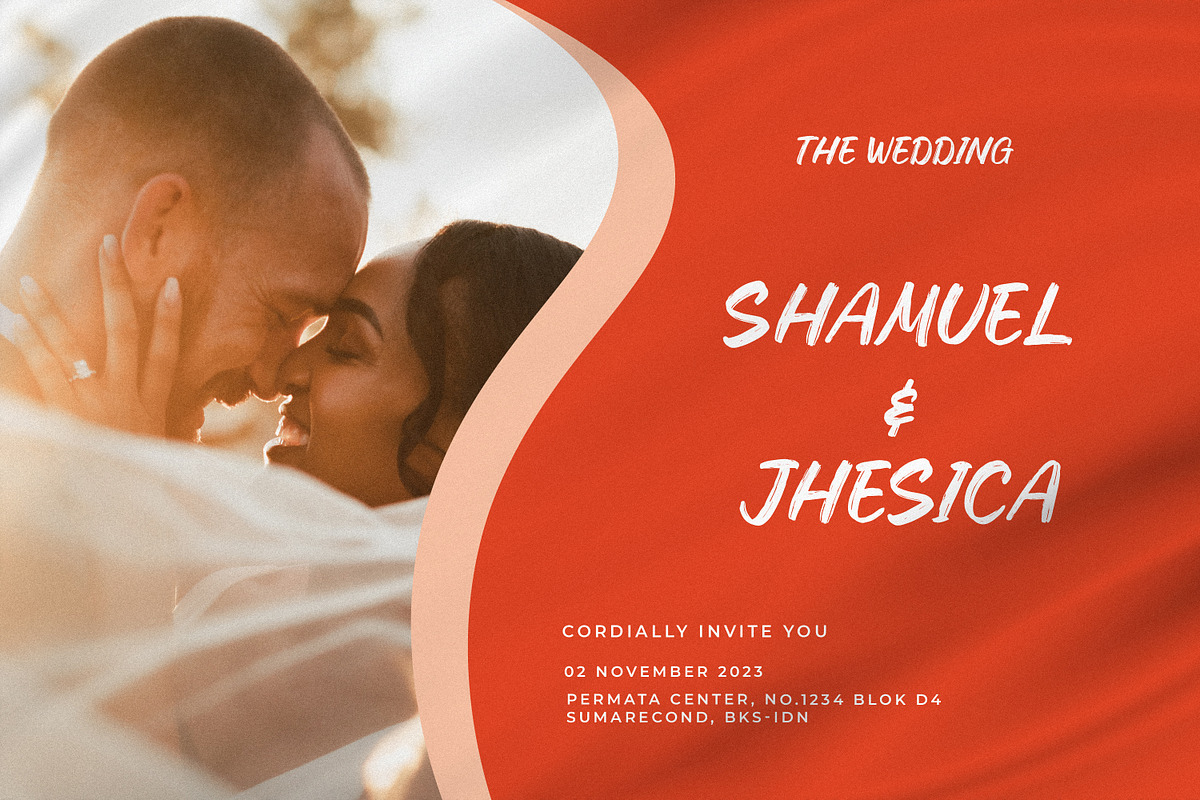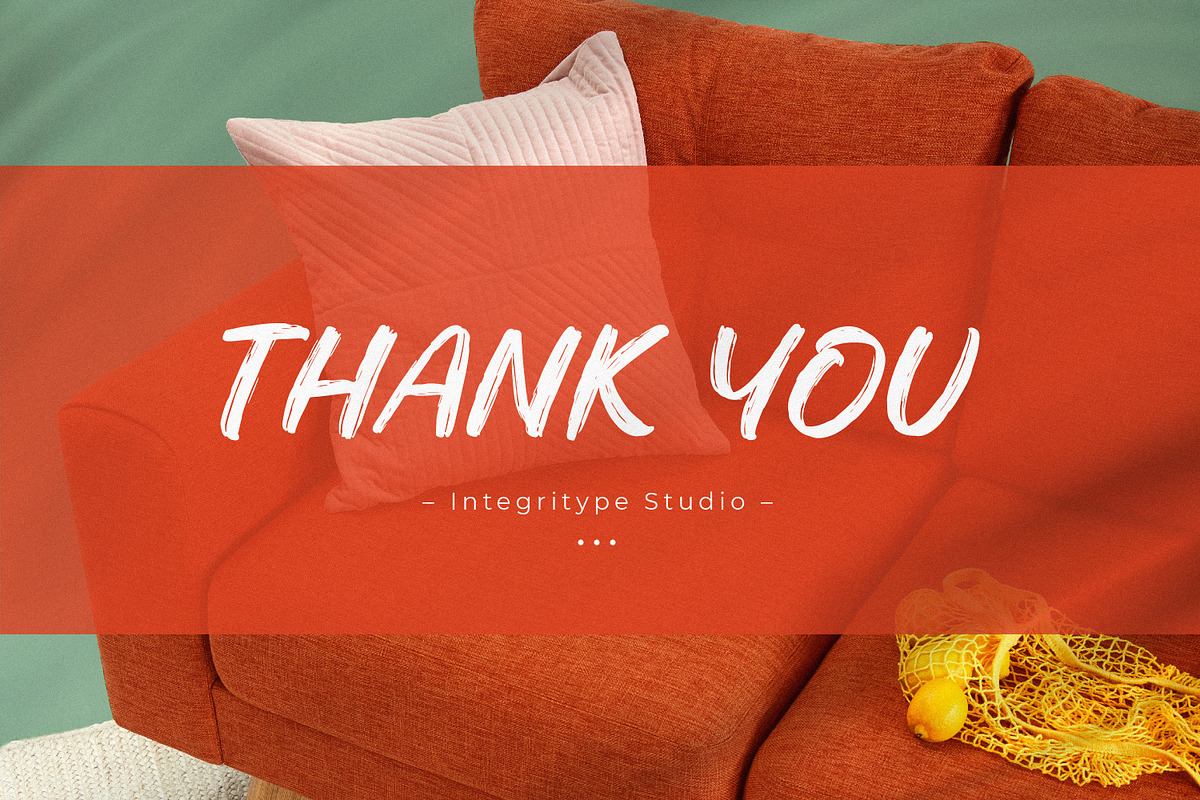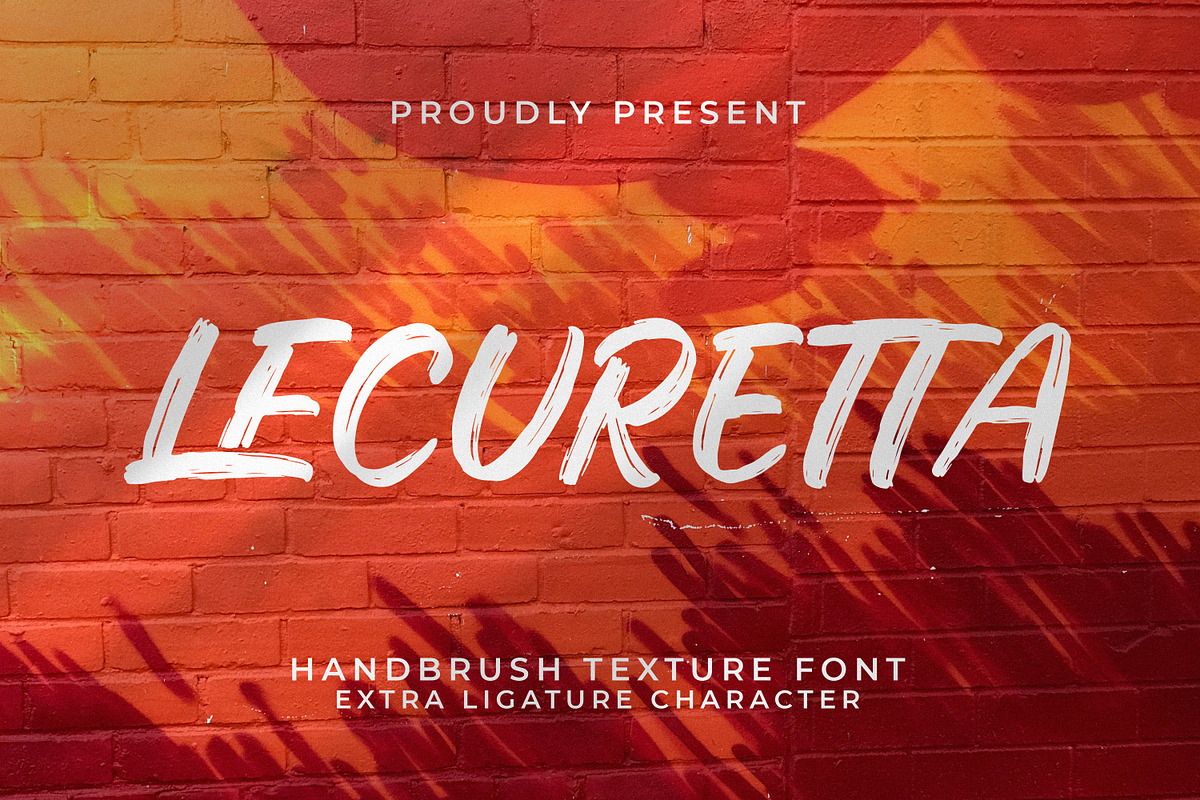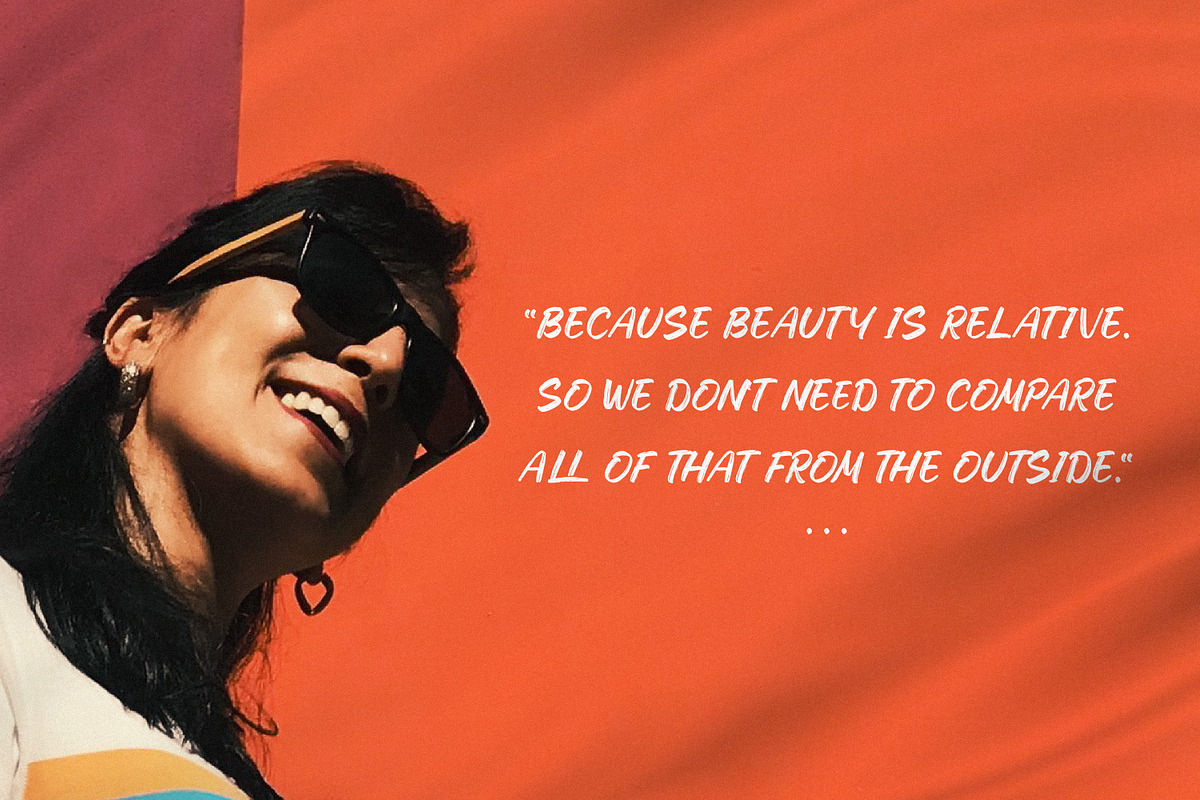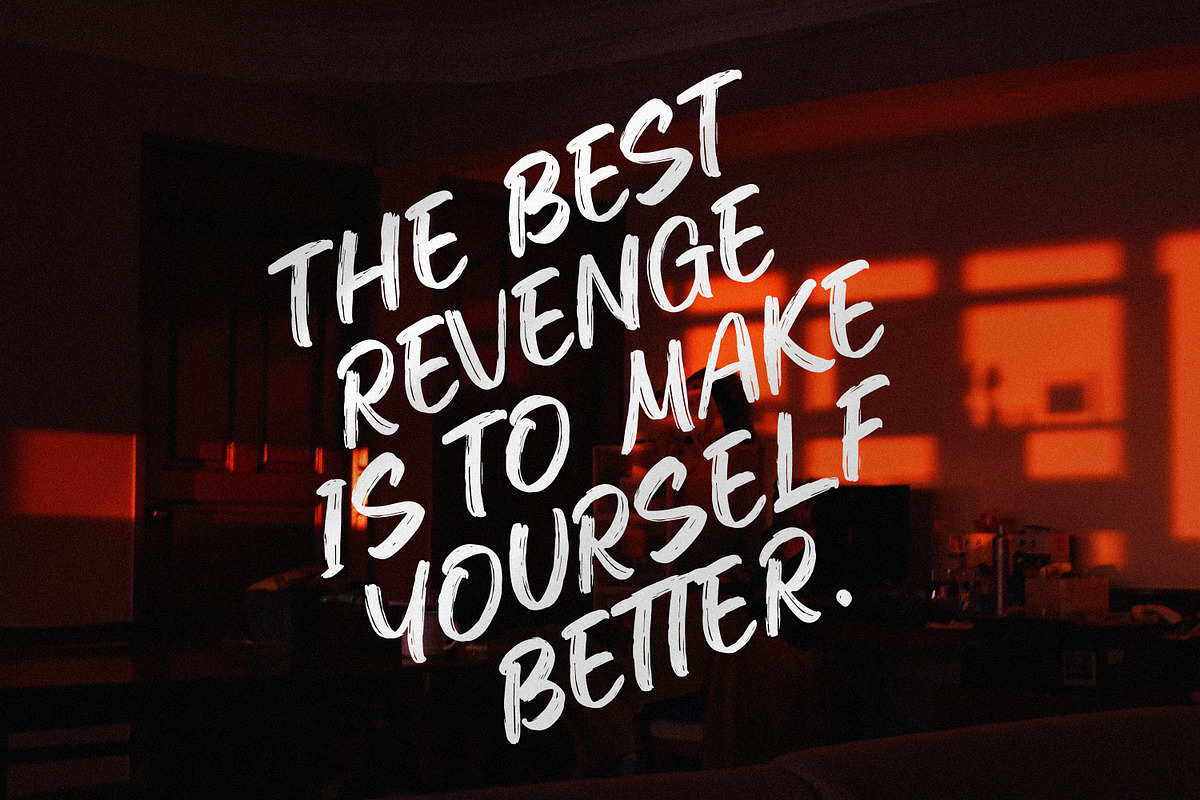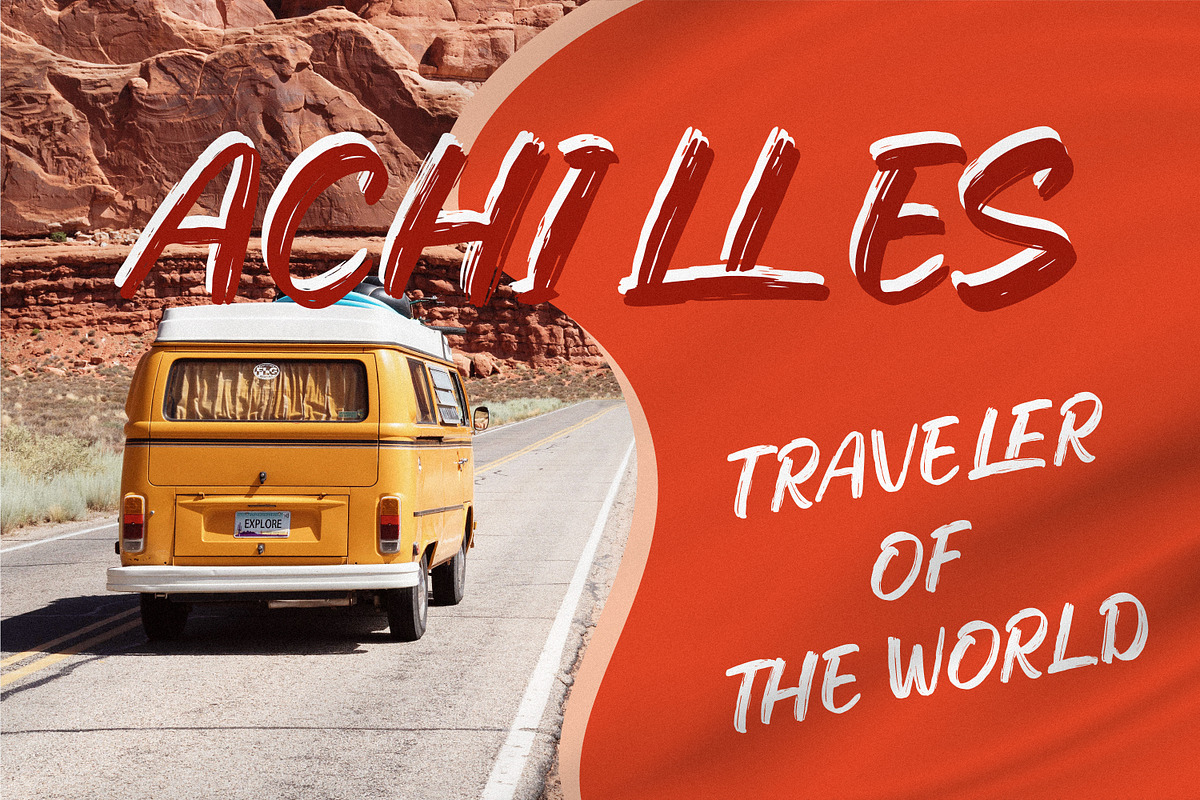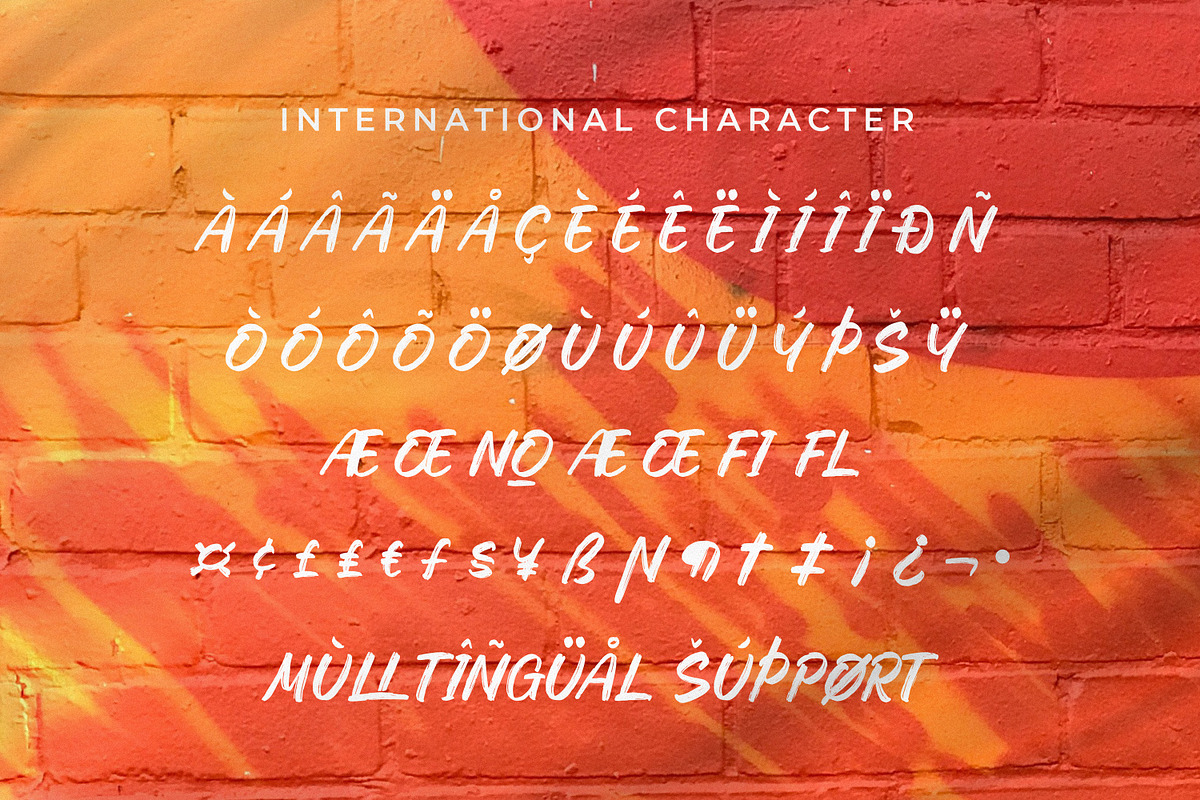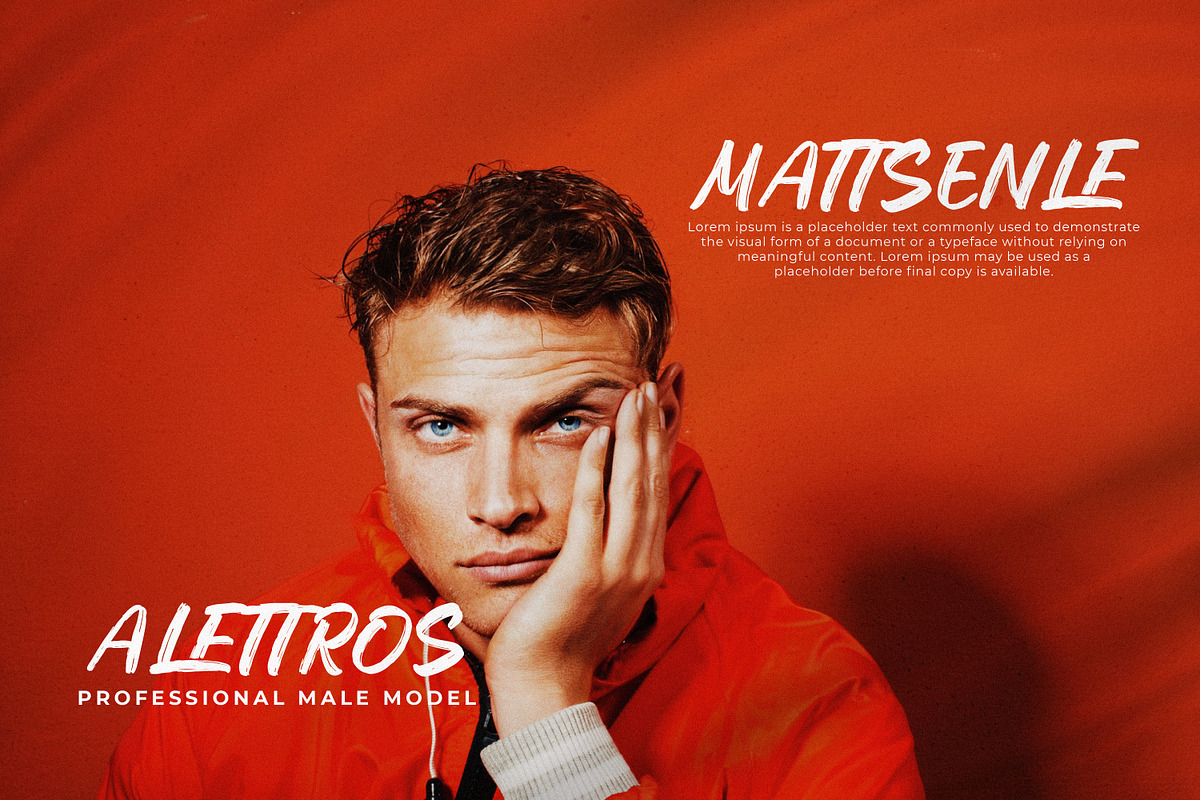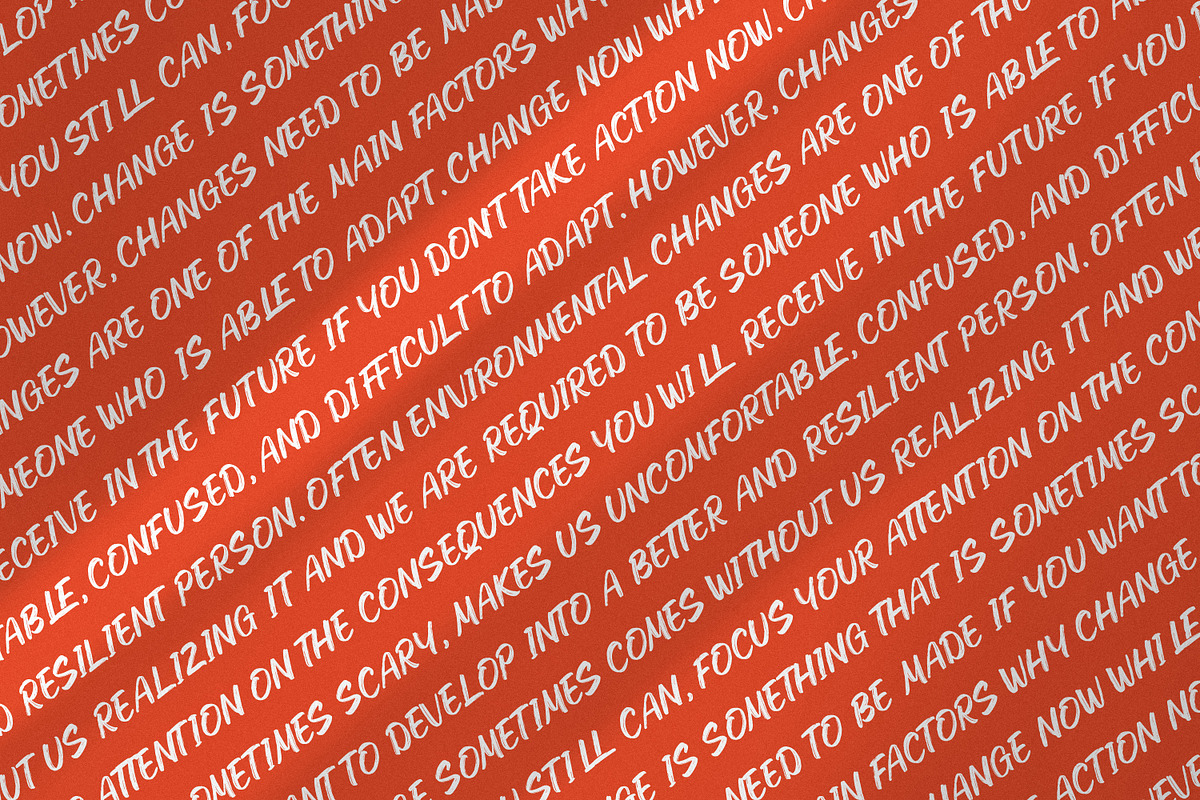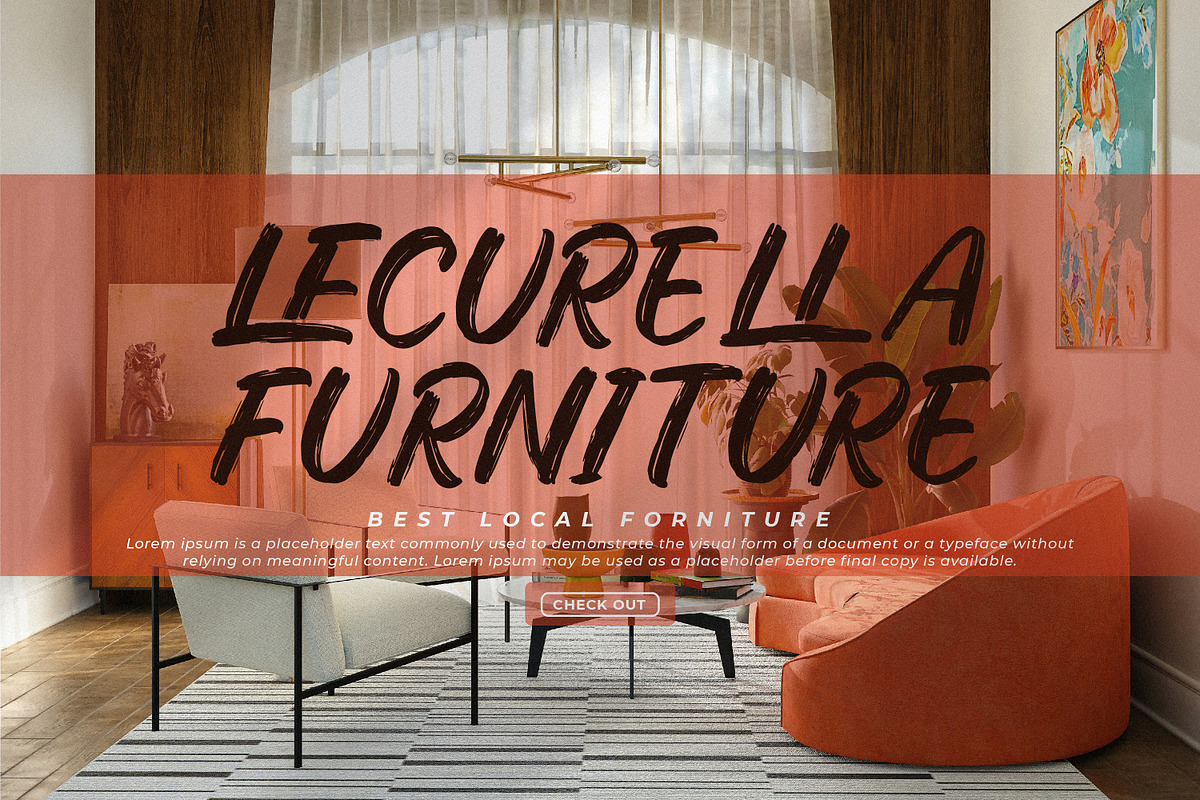
Lecuretta
Lecuretta - Handbrush Texture Font, from Integritype Studio, is a premium Handbrush Texture Font, suitable for any projects such as: logos, branding projects, homeware designs, product packaging, mugs, quotes, posters, shopping bags, t-shirts, book covers, name card, invitation cards, greeting cards, label, photography, watermark, special events, and all your other luxury projects that need a premium signature taste.
Ligature, Alternate & Swashes